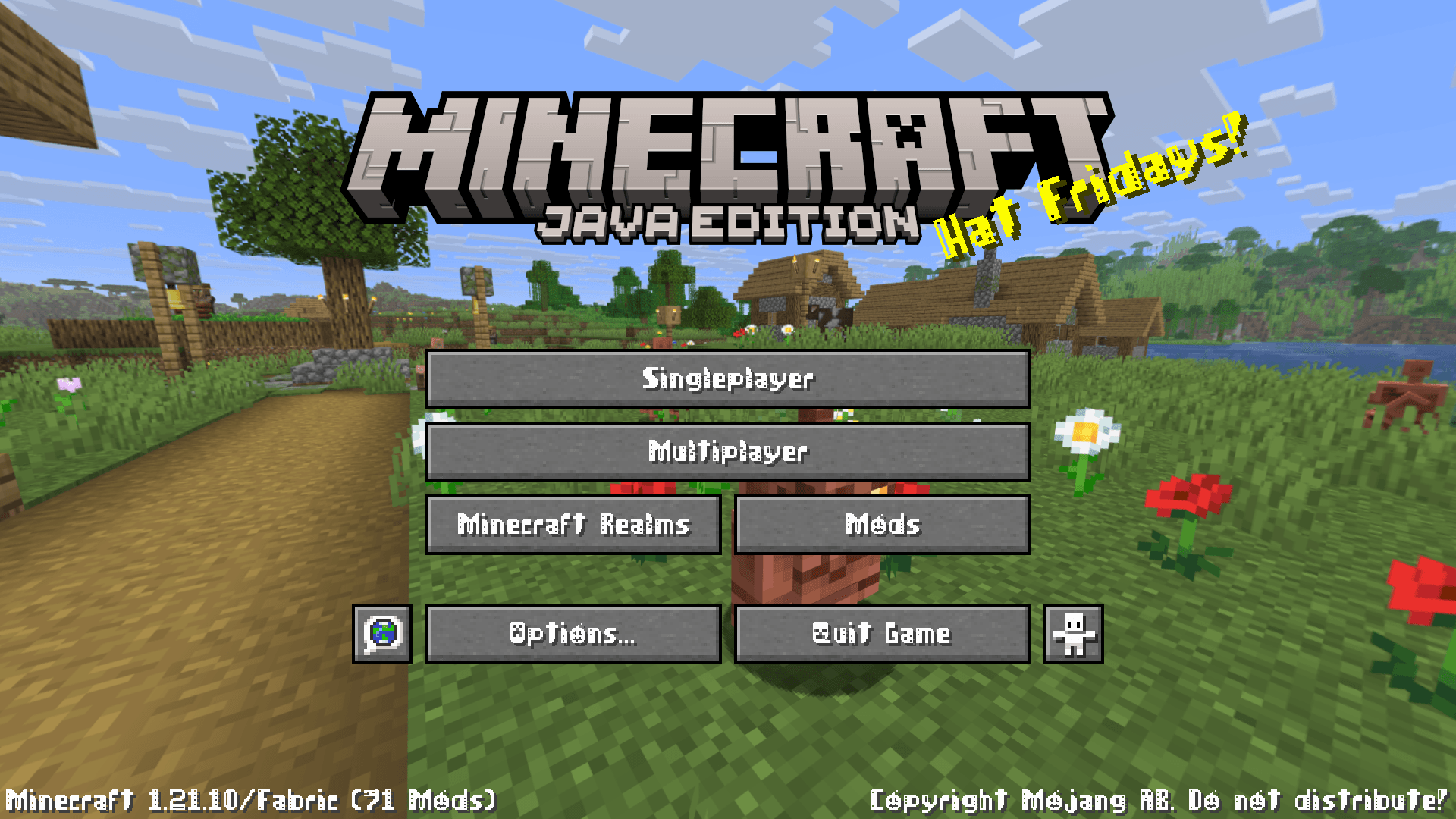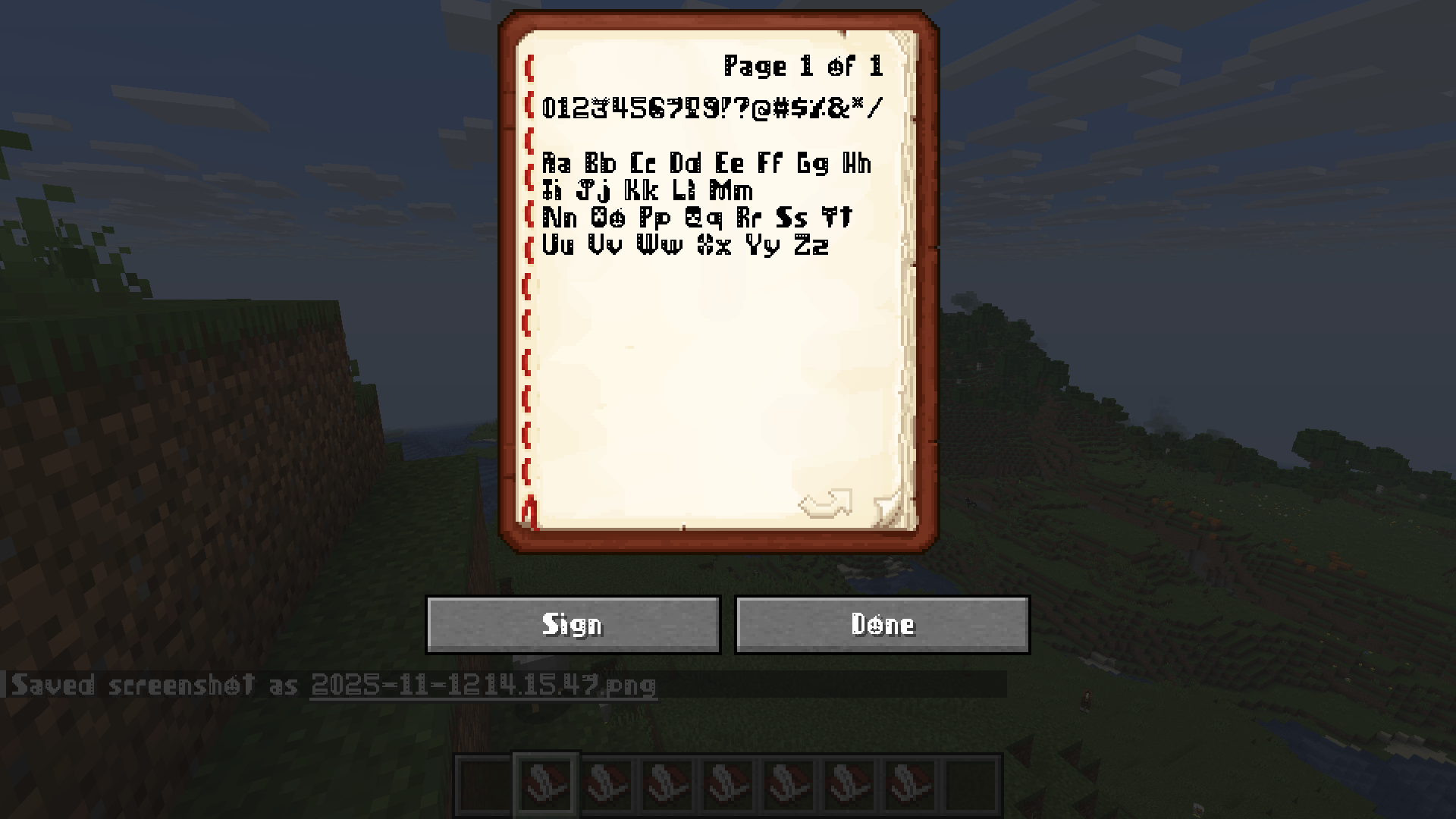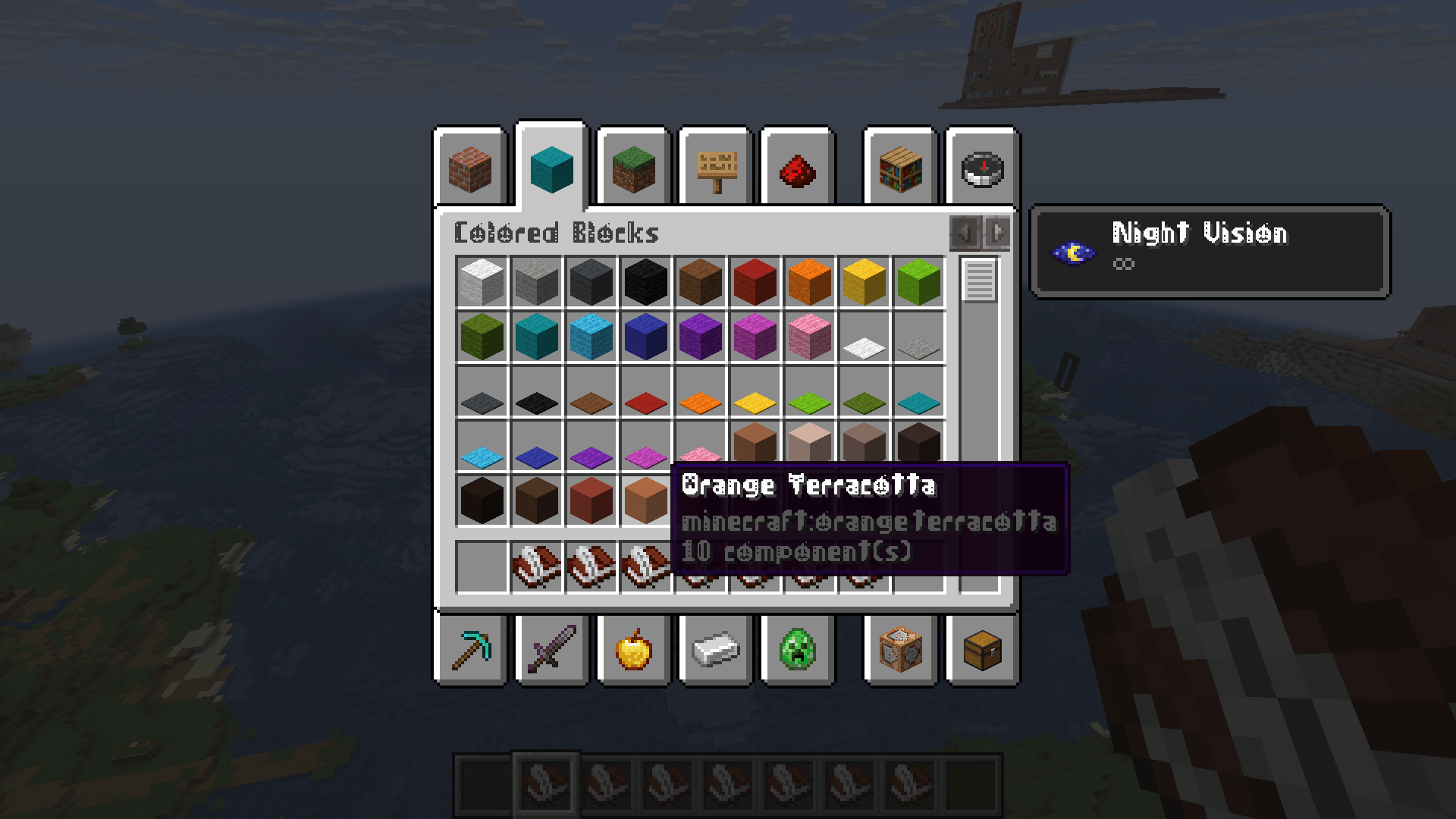
This fontpack adds a bold font with some familiar mob heads as letters.
It's bold and it's comic reminiscent!!
This fontpack adds a bold font with some familiar mob heads as letters.
It's bold and it's comic reminiscent!!